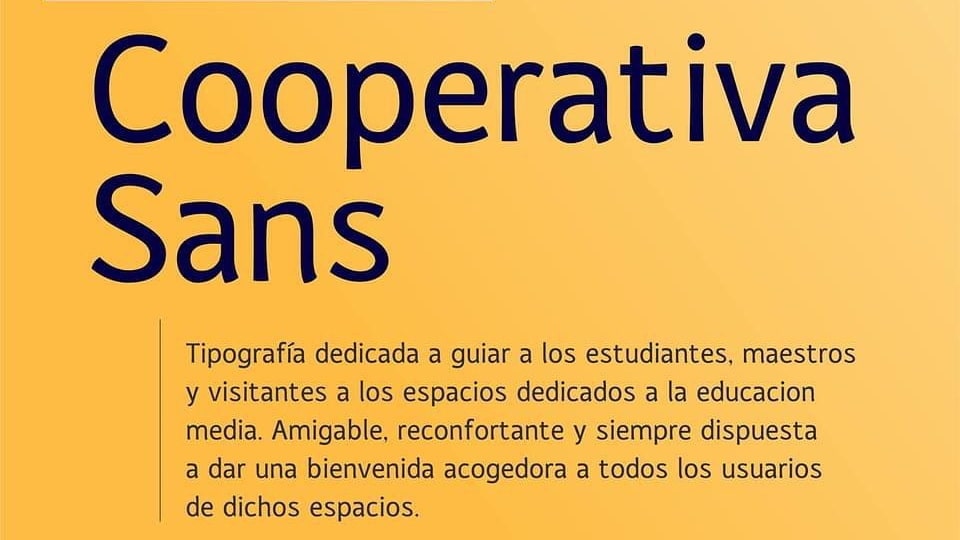
Cooperativa Sans Font
Cooperativa Sans is a wayfinding typeface dedicated to guiding students, teachers and visitors inside the spaces destined for secondary education.